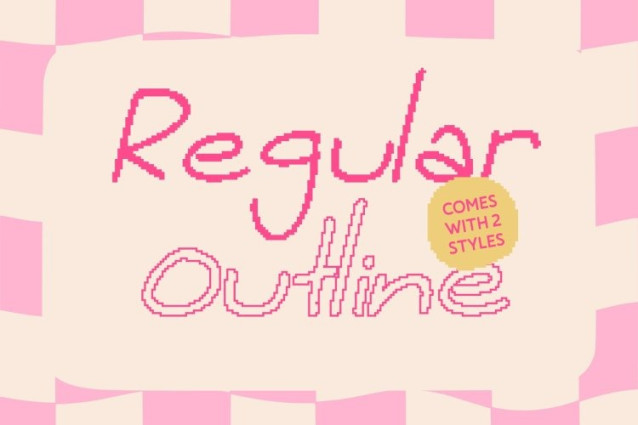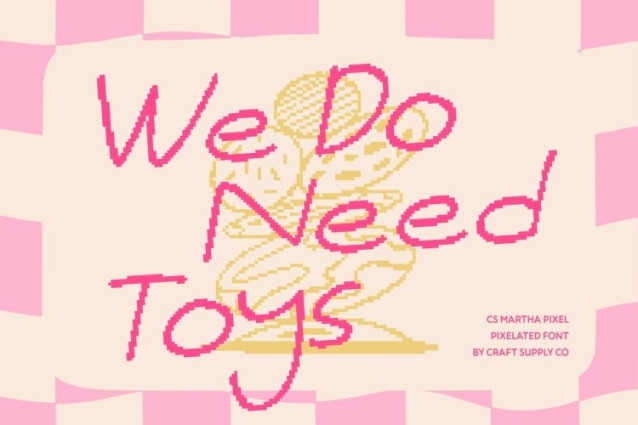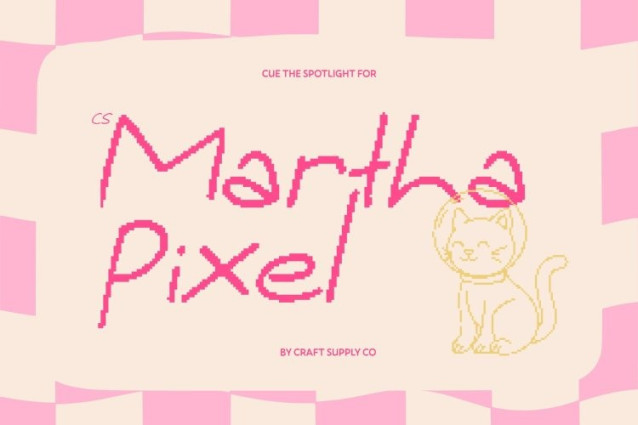
CS Martha Pixel Font
CS Martha Pixel Font This is a fun handwritten font inspired by the lively flow of natural pen strokes, enhanced with a charming pixel style. Each letter feels spontaneous and full of personality, creating a warm and authentic look that instantly connects with the viewer. The playful movement of the characters brings a friendly, human touch that feels cheerful and inviting.
Lively Strokes That Bring Text to Life
The dynamic curves and casual rhythm of this font turn simple text into an expressive visual experience. Its handwritten texture celebrates beautiful imperfection, adding emotion and character to every word. The pixel treatment adds a retro-digital twist, making the font feel eye-catching while still maintaining clarity and artistic charm.
Perfect for Personal Branding and Creative Projects
This font shines in designs that value individuality and creativity. It’s ideal for personal branding, quote designs, journals, playful posters, lifestyle content, and social media graphics. The combination of handwritten warmth and pixel style gives your designs a unique voice that feels both personal and visually engaging.
Versatile, Friendly, and Playfully Digital
Designed for both digital and print use, this font adapts beautifully to colorful palettes, textured backgrounds, and creative compositions. The pixel style adds a nostalgic touch that works perfectly for digital themes or retro-inspired visuals.